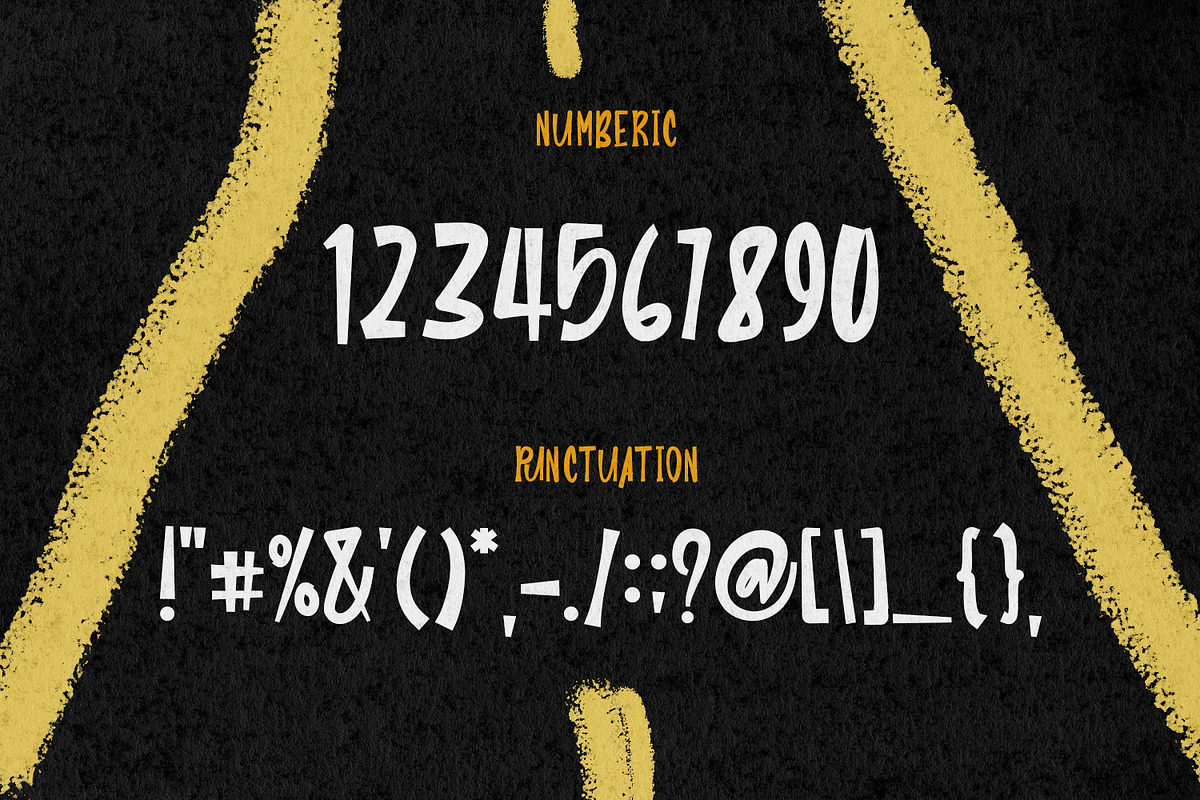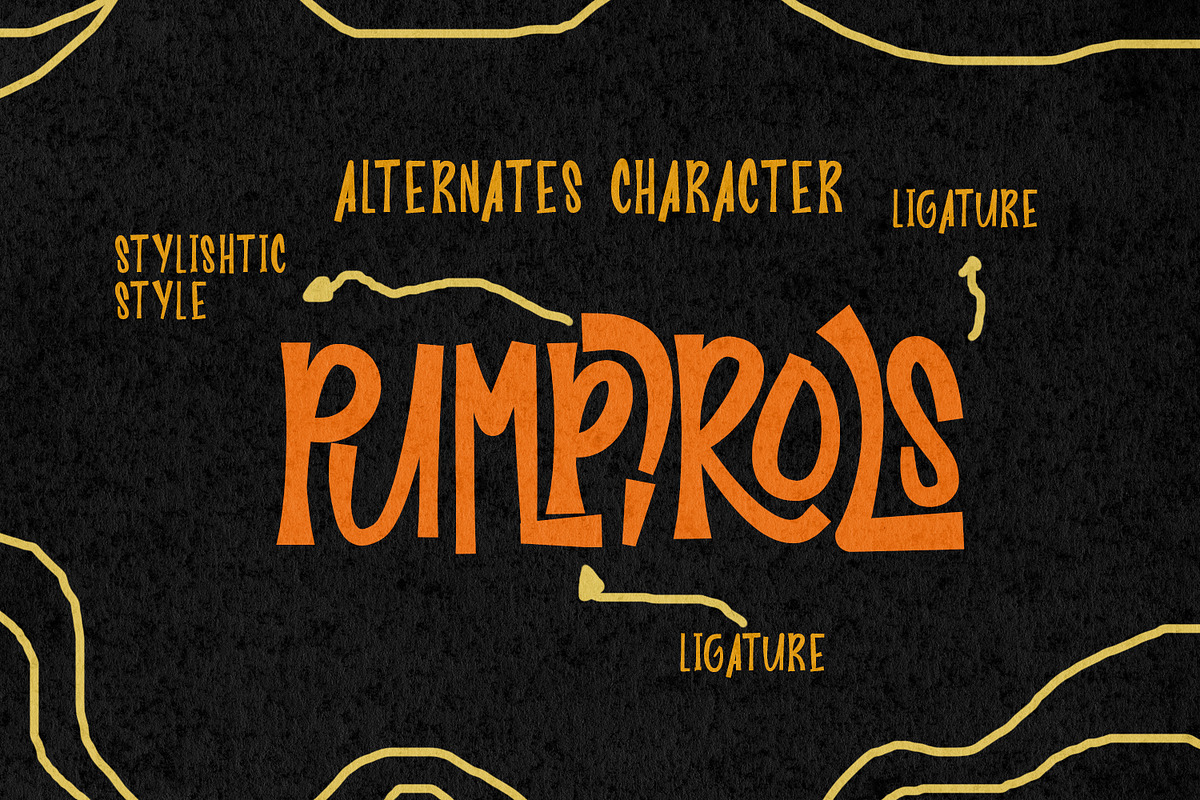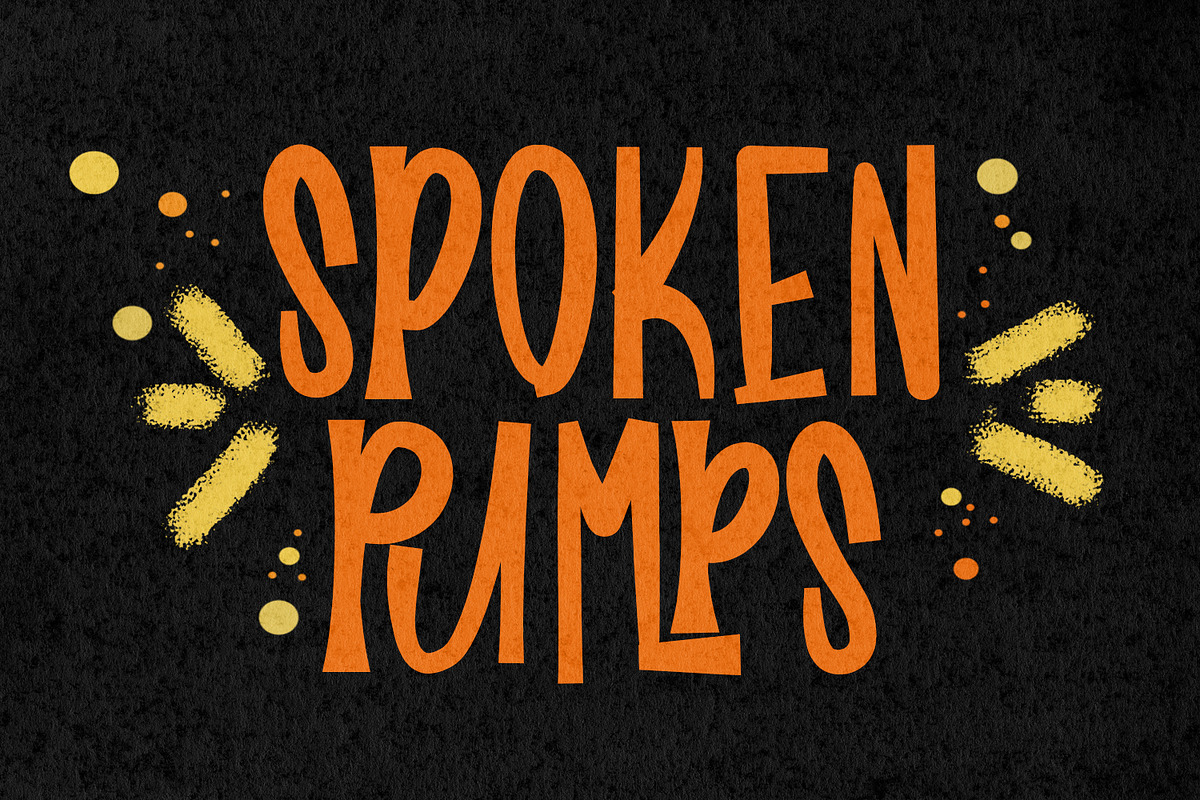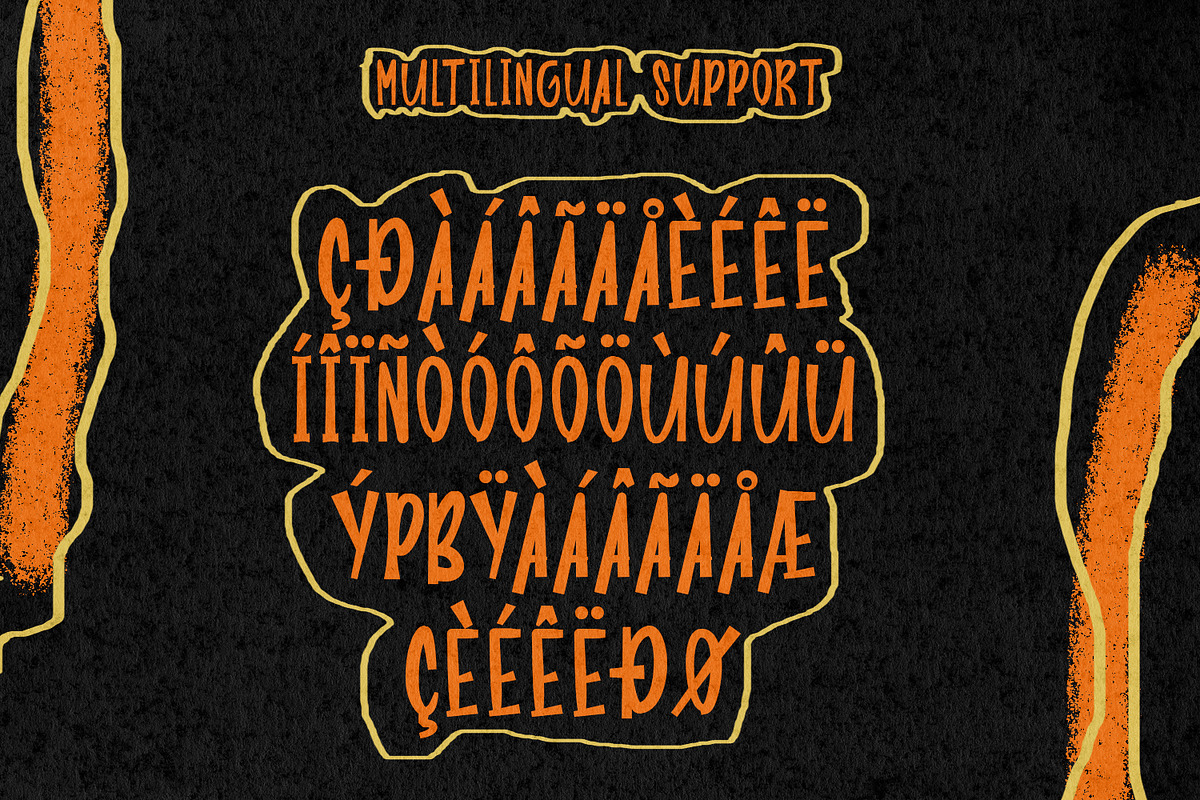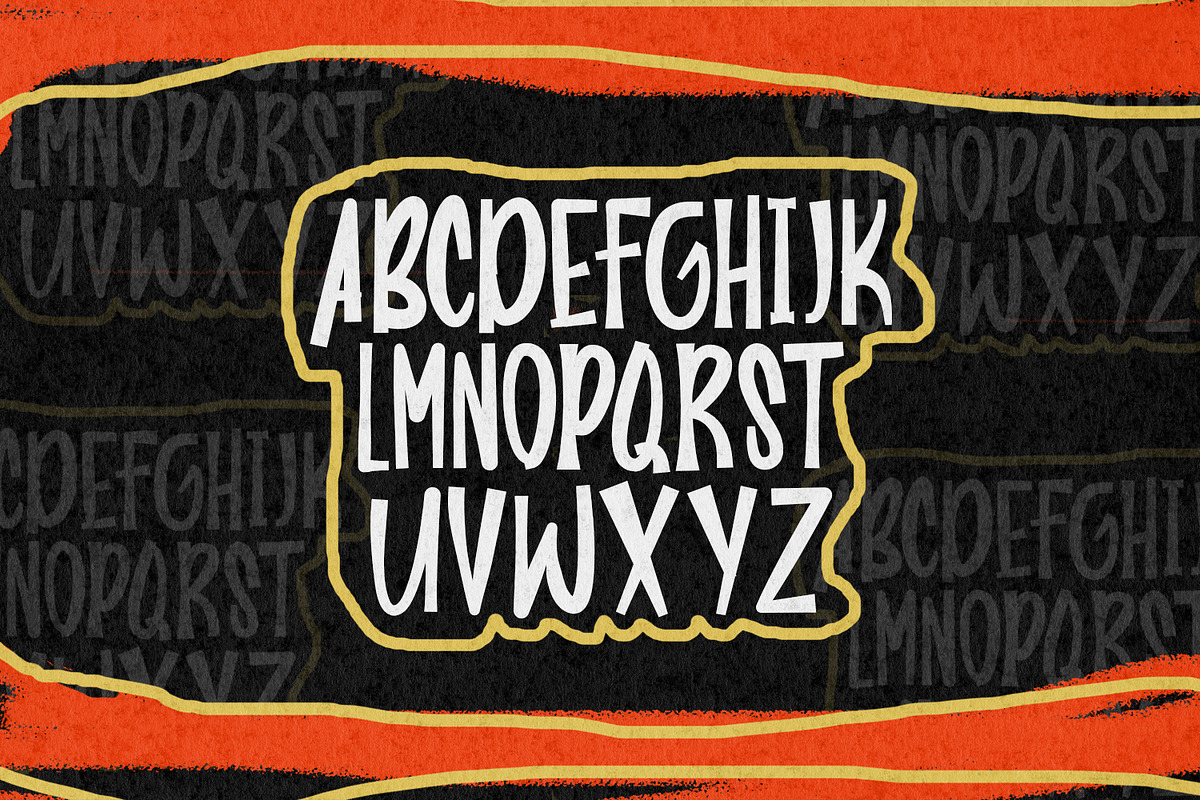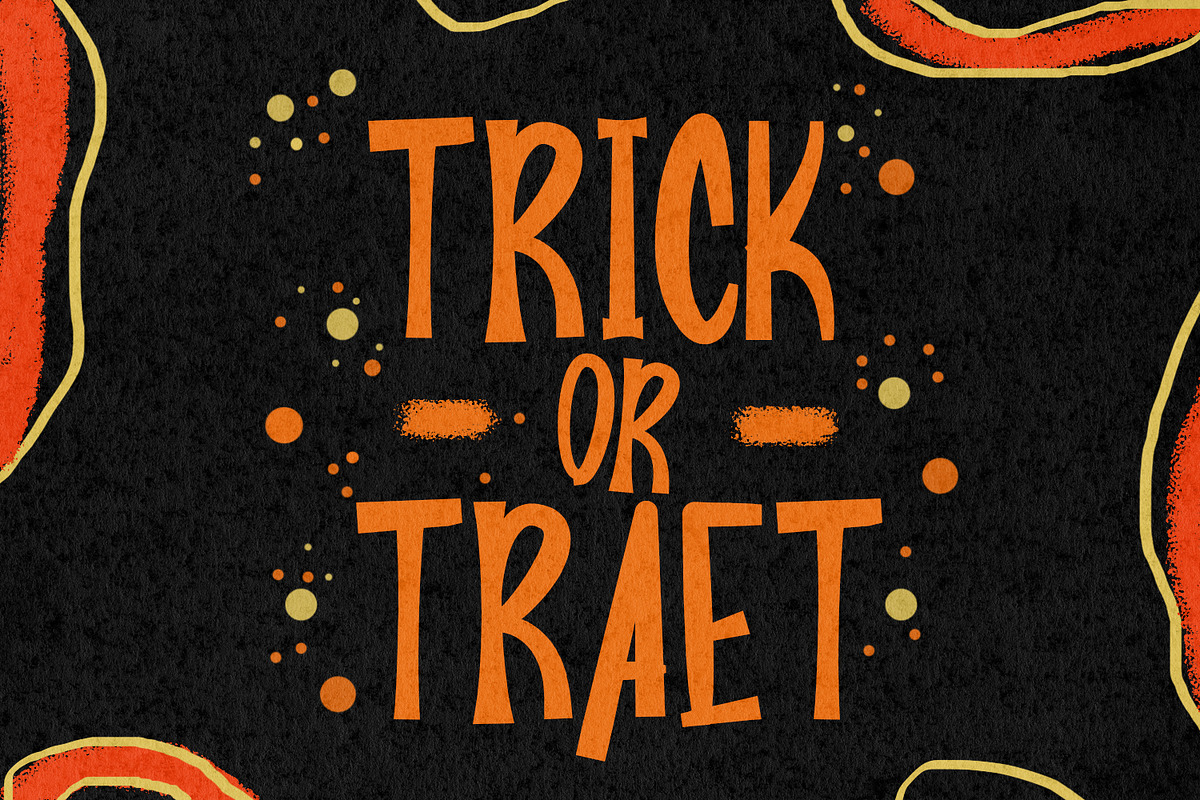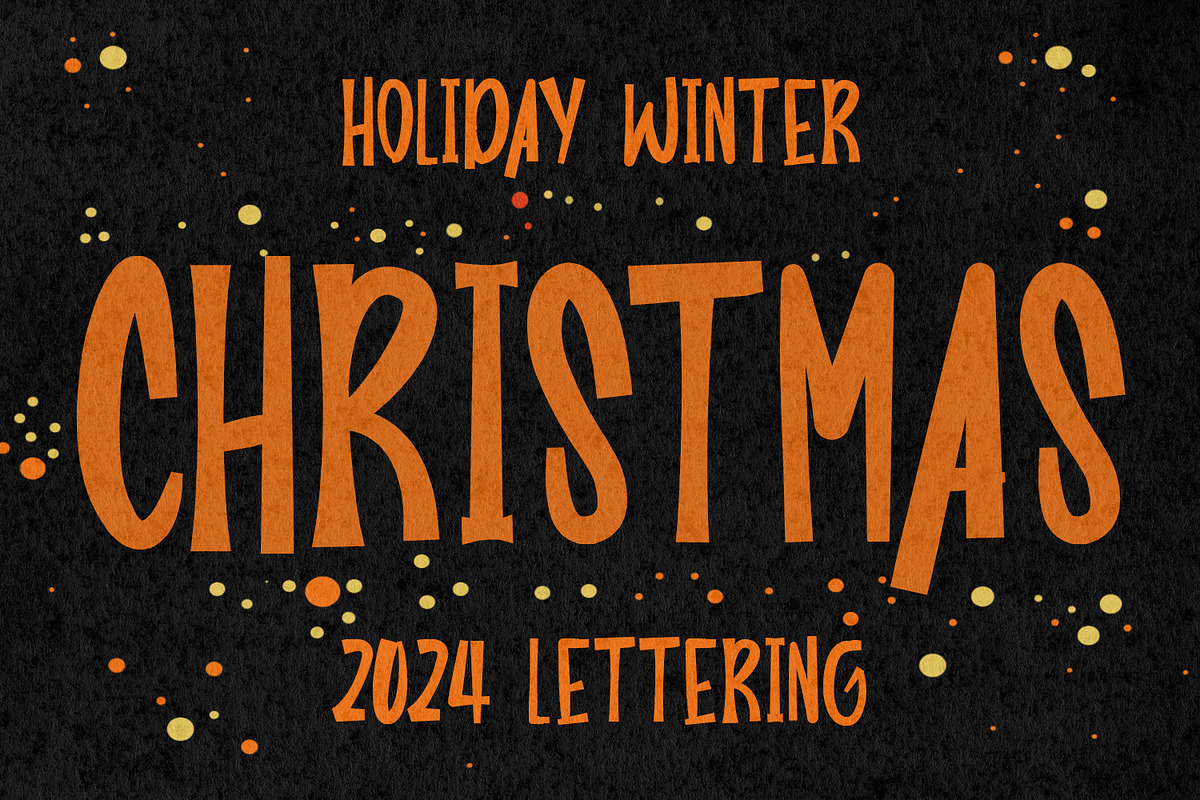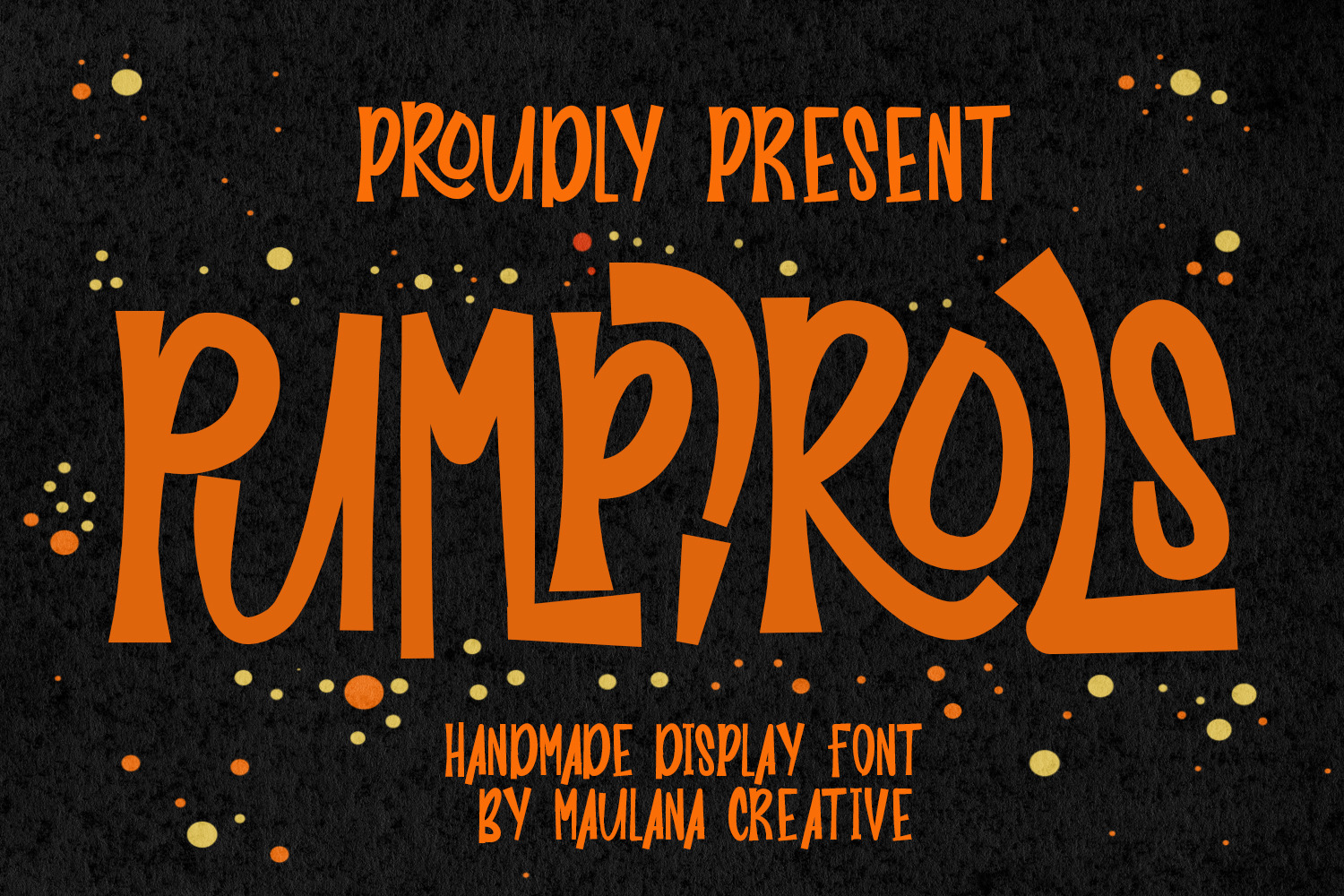
Pumpirols Handmade Display Font
Pumpirols is a handmade display font. With medium low contrast stroke, vintage character with a ligature and alternate. To give you an extra creative work. Pumpirols font support multilingual language. This font is good for logo design, Social media, Movie Titles, Books Titles, a short text even a long text letter and good for your secondary text font with sans or serif. Make a stunning work with Pumpirols font.